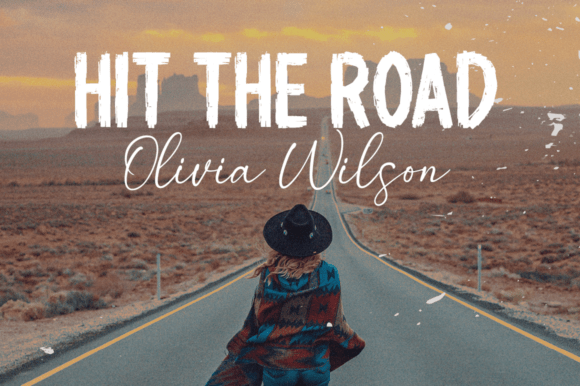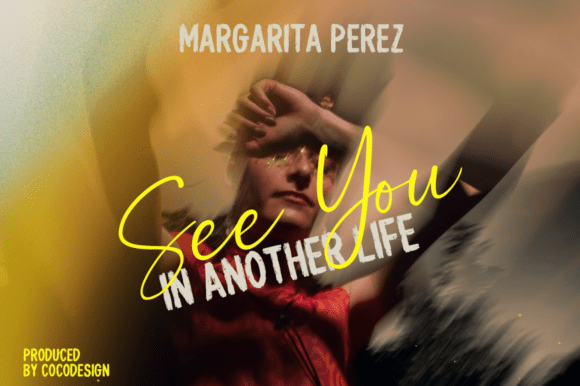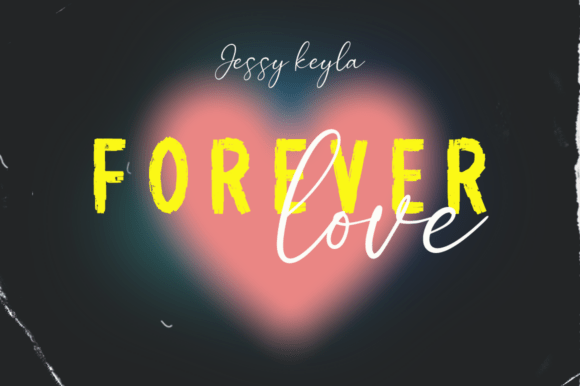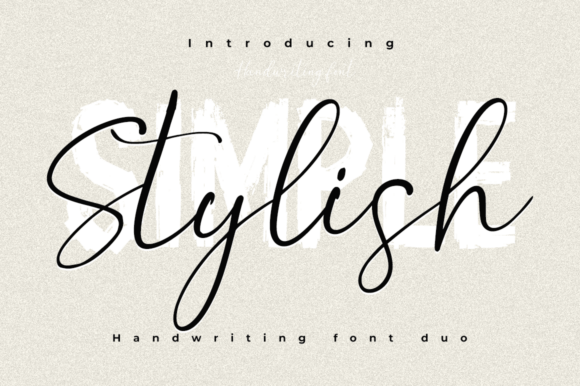
Introduction to Simple Stylish Font
Presenting Simple Stylish Font Duo, a meticulously created handmade brush font, radiating pure authenticity.
The creative process behind this work of art respects its genuine roots, maintaining an enticing texture inherent from its organic inception With its artistic charm and unique design, Simple Stylish Font Duo brings a touch of originality and sophistication to your work.
Key Features of Simple Stylish Font
Why Choose Simple Stylish Font?
Simple Stylish Font offers exceptional quality and versatility, making it a valuable addition to your design toolkit. Whether you’re creating for personal projects or commercial use, Simple Stylish Font delivers professional results.